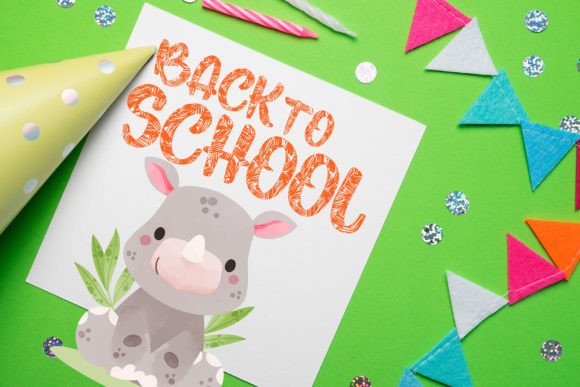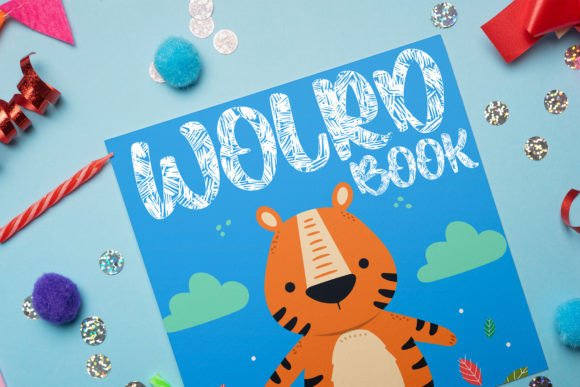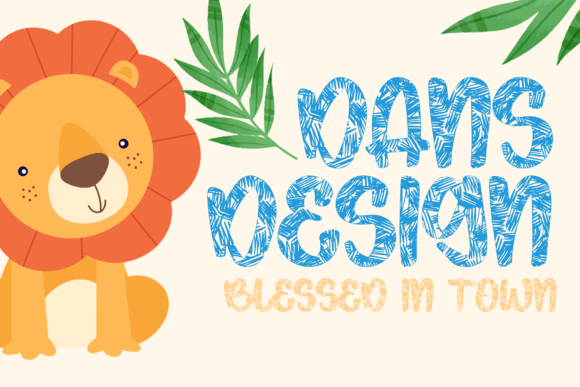
Introducing Child Tiger Font: The Ultimate Display Font for Friendly Designs
Are you tired of using the same old fonts for your designs, crafts, and digital projects? Look no further! Child Tiger Font is here to revolutionize the way you approach typography. This childish, easy-to-read display font is designed to convey impeccable friendliness, making it perfect for a wide range of applications.
Child Tiger Font is a versatile and fun font that can be used for various creative projects. Whether you’re a designer, crafter, or simply someone who loves making greeting cards, this font is sure to become your new favorite go-to. Its playful and approachable design makes it ideal for:
• Crafts: Use Child Tiger Font to add a personal touch to your handmade crafts, such as DIY cards, gift tags, and scrapbooking projects.
• Digital Design: Add a friendly and approachable tone to your digital designs, including social media graphics, blog posts, and website headers.
• Presentations: Make your presentations more engaging and fun with Child Tiger Font, perfect for educational materials, workshops, or business presentations.
• Greeting Cards: Create personalized and heartwarming greeting cards for special occasions, such as birthdays, holidays, or get-well wishes.
What Makes Child Tiger Font So Special?
Child Tiger Font stands out from other display fonts due to its unique combination of characteristics. Here are some features that make it a must-have for designers and crafters:
• Childish and Playful: Child Tiger Font has a youthful and energetic vibe that’s perfect for designs that require a friendly and approachable tone.
• Easy-to-Read: The font’s clear and simple design ensures that it’s easy to read, even at small sizes, making it perfect for digital and print applications.
• Impeccable Friendliness: Child Tiger Font exudes warmth and friendliness, making it ideal for designs that require a personal touch.
• Versatile: This font can be used for a wide range of projects, from formal presentations to casual crafts.
How to Use Child Tiger Font in Your Designs
Using Child Tiger Font in your designs is easy! Here are some tips to get you started:
• Pair it with Other Fonts: Combine Child Tiger Font with other fonts to create a unique and visually appealing design.
• Experiment with Colors: Try out different color schemes to match your brand or project’s tone and style.
• Use it for Headings and Titles: Child Tiger Font is perfect for headings and titles, adding a friendly and playful touch to your designs.
• Add it to Your Digital Toolkit: Make Child Tiger Font a part of your digital design toolkit, using it for social media graphics, blog posts, and more.
Child Tiger Font is a game-changer for designers and crafters looking for a friendly and approachable display font. Its childish, easy-to-read design and impeccable friendliness make it perfect for a wide range of applications. Whether you’re creating crafts, digital designs, presentations, or greeting cards, Child Tiger Font is sure to become your new favorite go-to font. So why wait? Download Child Tiger Font today and start creating fun and engaging designs that showcase your personality and style!